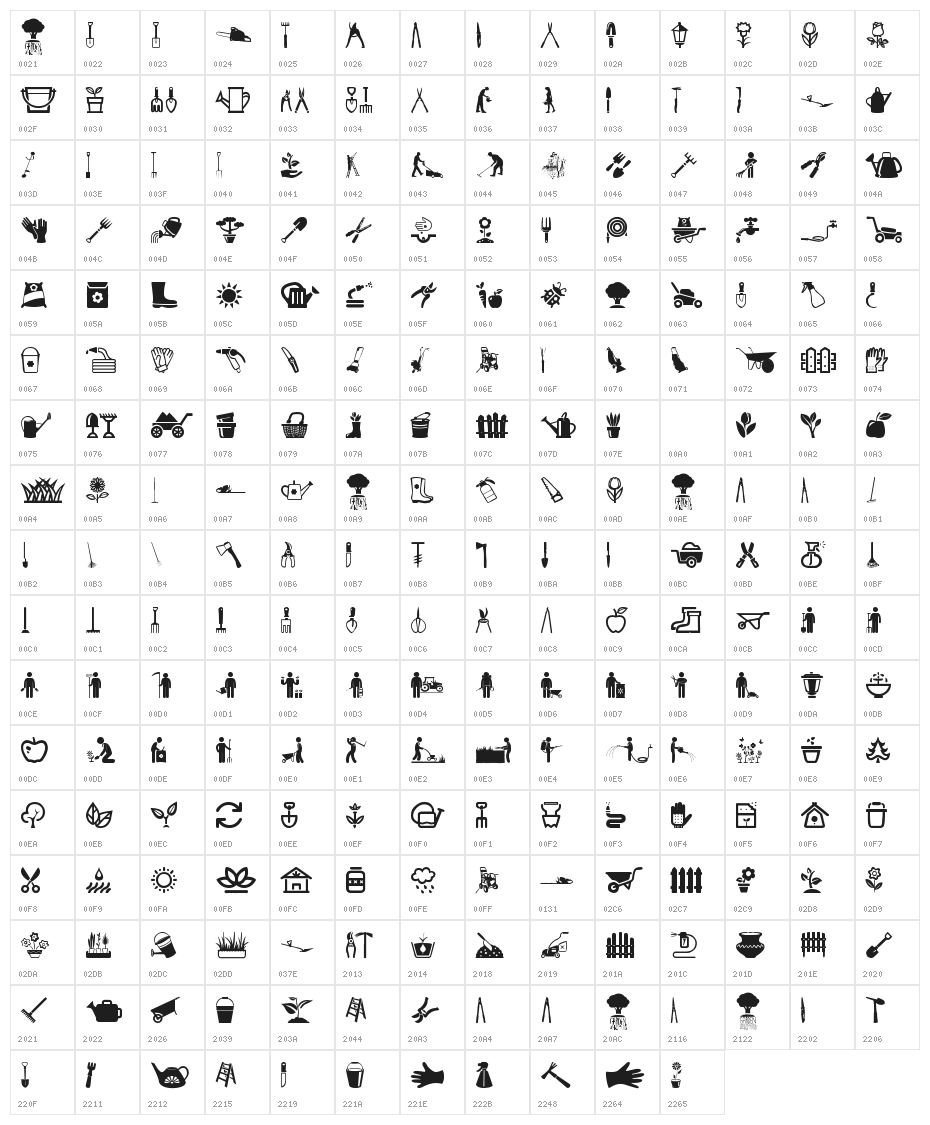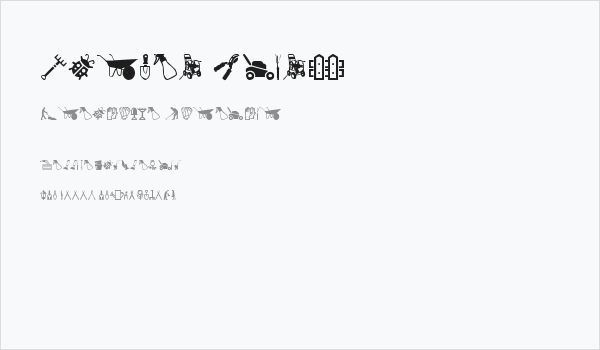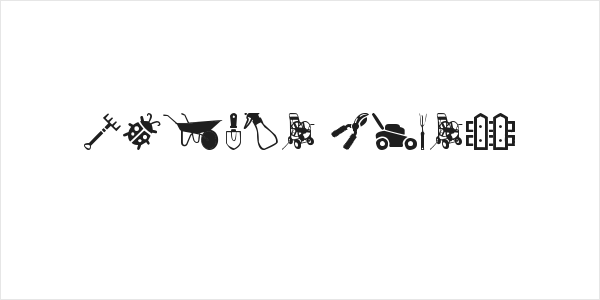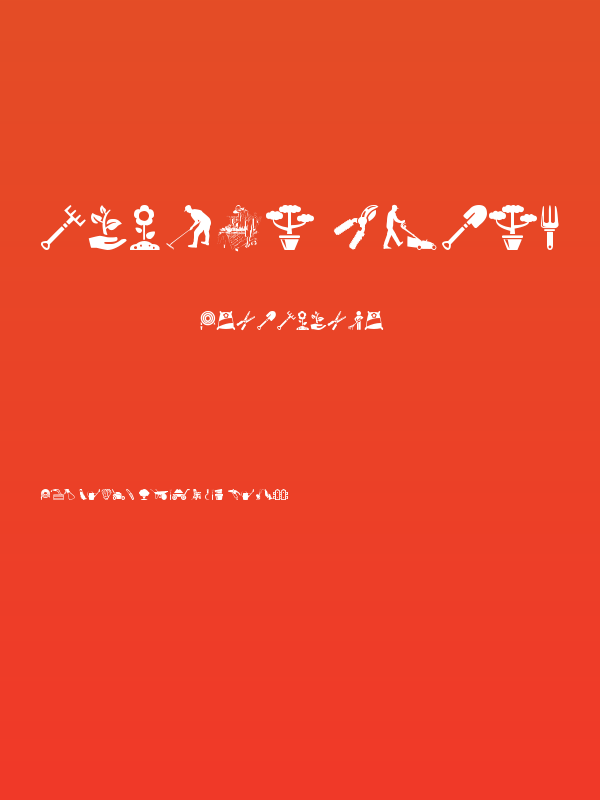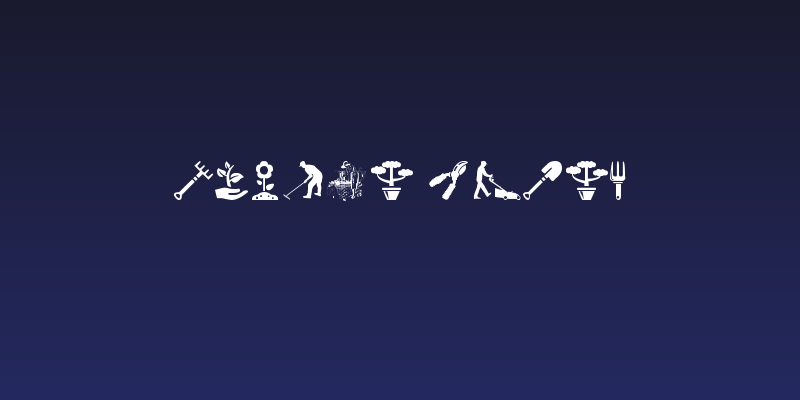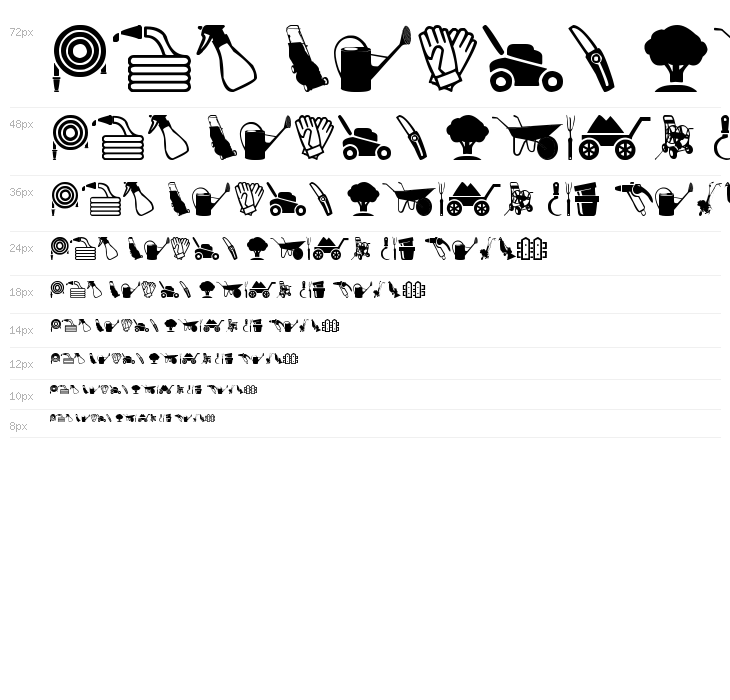
Garden Icons Font
Garden Icons Description
A collection of bold, high-contrast garden-themed pictograms and icons, featuring tools, plants, people, and equipment in a playful, illustrative style. The icons are solid, easily recognizable, and designed for clear legibility at various sizes.
| Overall Style | Decorative, Playful, Illustrative |
| Use Case | Icons, Logos, Signage, Educational materials |
| Proposed Projects | Gardening websites, instructional materials, product packaging, signage, infographics, children's books. |